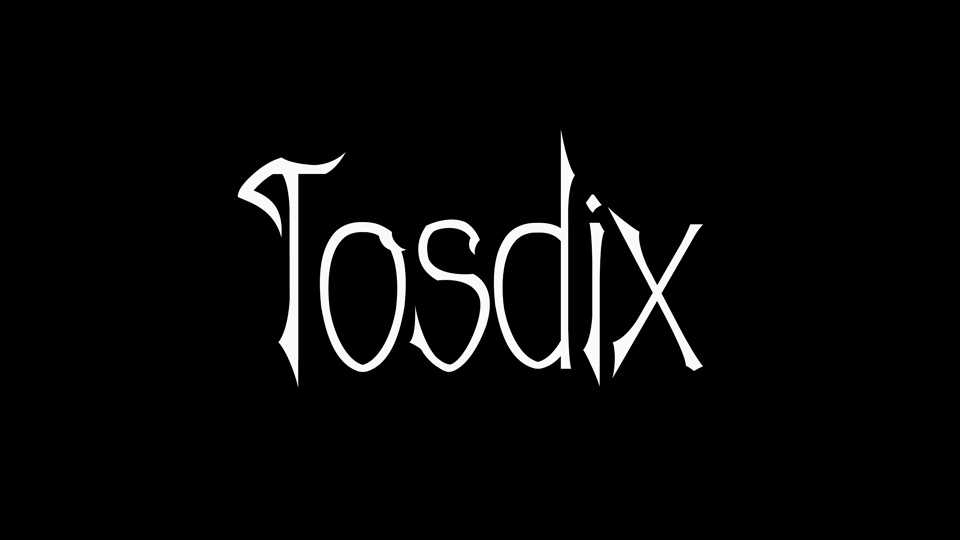
Download Tosdix font, a handwritten typeface built on careful Gothic planning and chaotic pagan processing. Although the plans were spectacular, they fell under the onslaught of chaos.